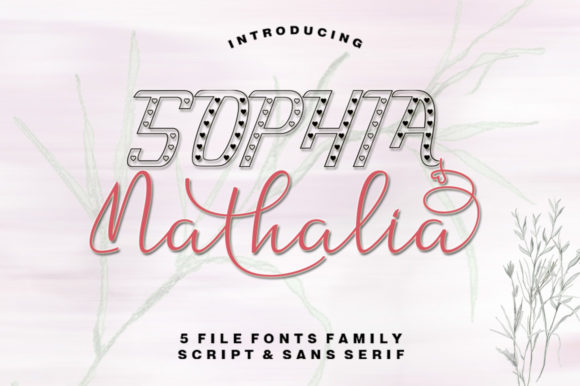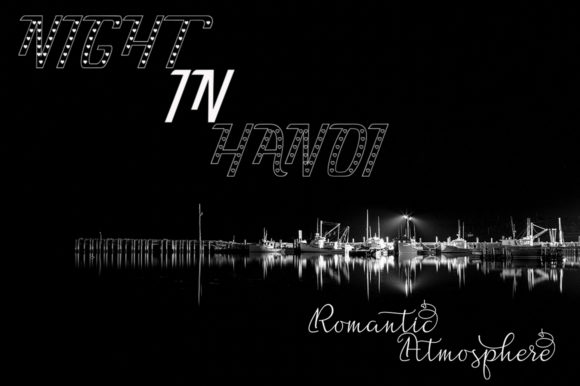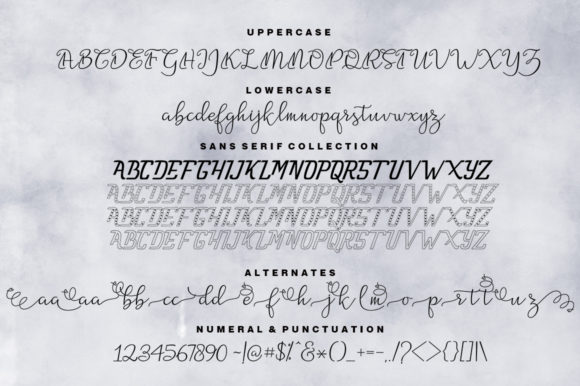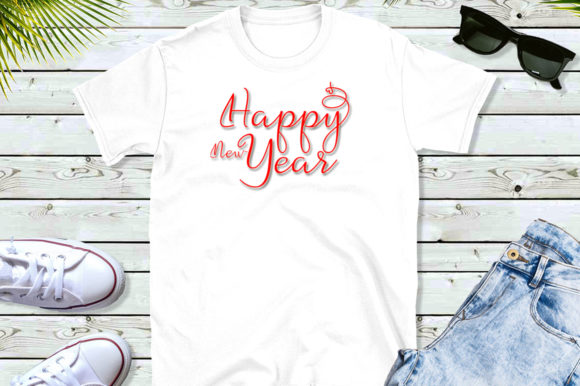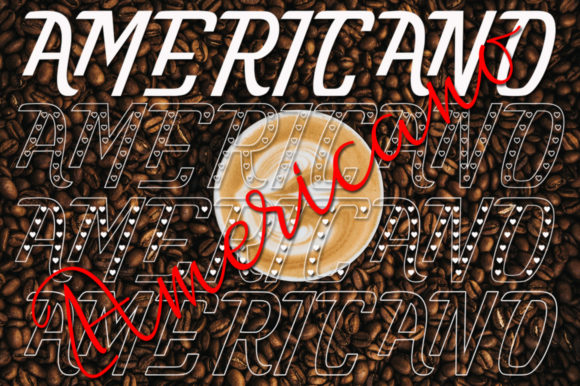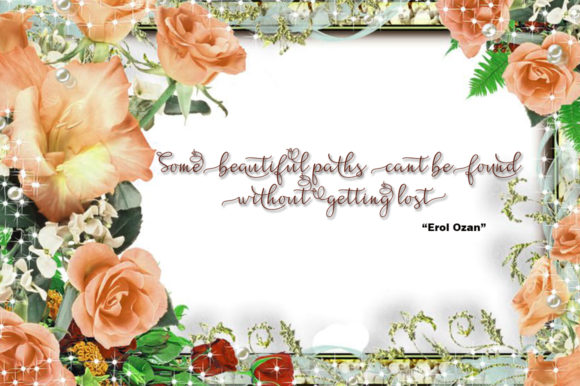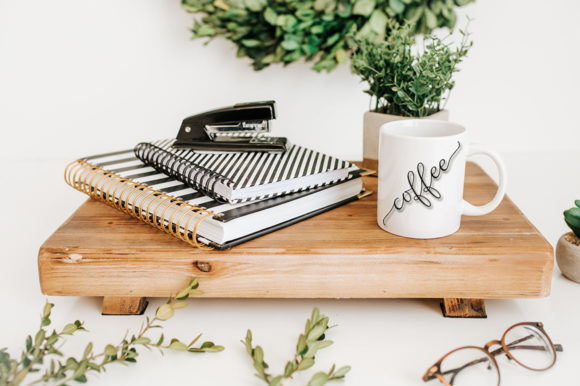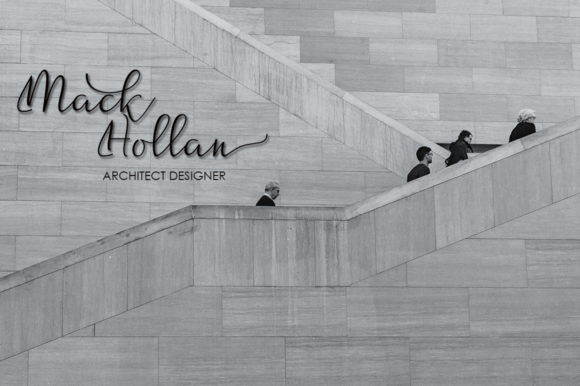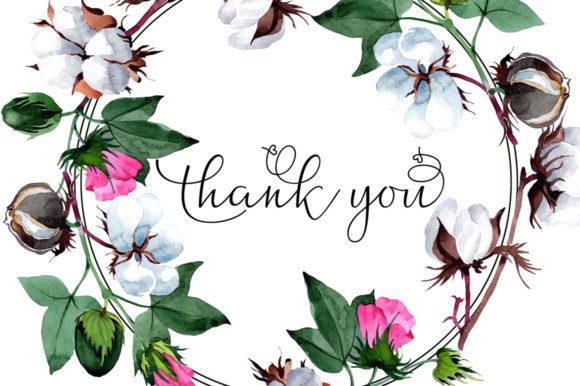
Nathalia Duo Font
The Nathalia is a romantic typeface. It includes a script and sans version which can be combined perfectly.
It’s bold and elegant style is perfect for logos, wedding invitations, t-shirts, letterheads, and much more!